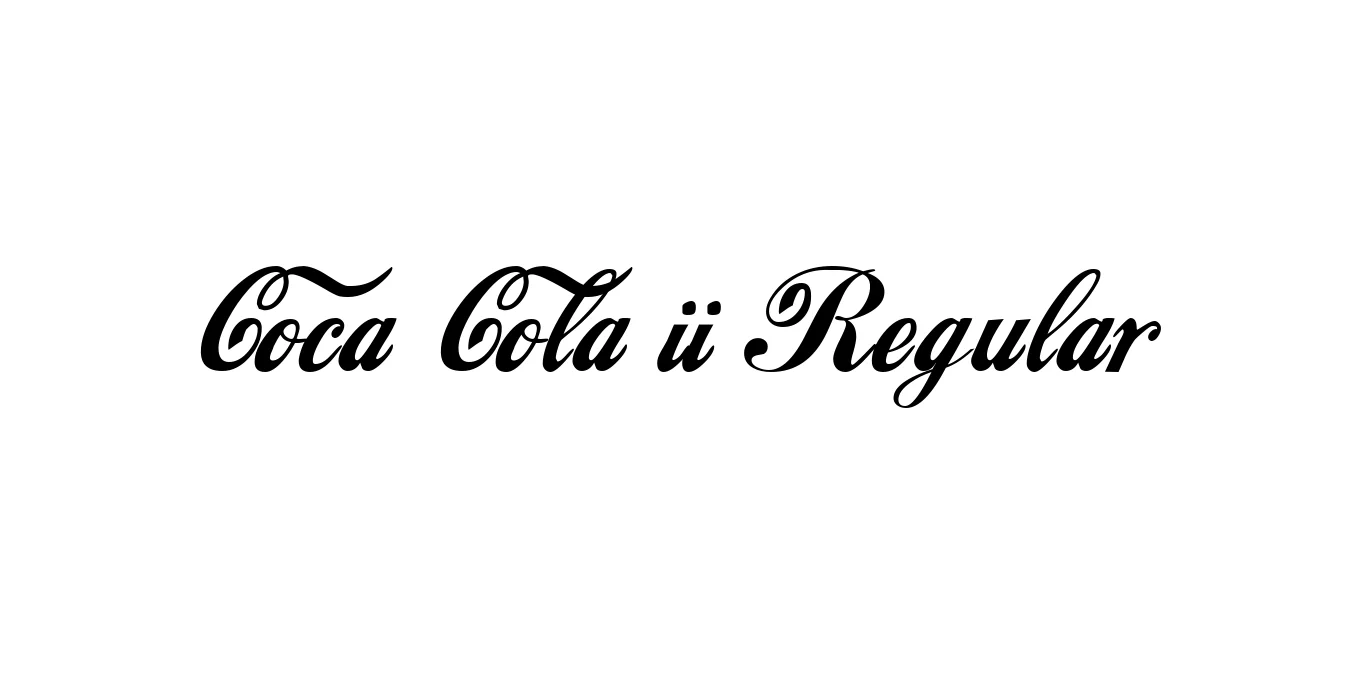
Coca Cola ii Regular
Designed by Unknown (Based on the original design by Frank Mason Robinson)
The Coca Cola ii Regular font is a meticulous recreation of the iconic Spencerian script that has defined the Coca-Cola brand since its inception in the late 19th century. Originally penned by Frank Mason Robinson, the company's bookkeeper, the script was chosen for its elegant, flowing style which was popular in formal correspondence of the era. This digital 'ii' version captures the specific weight and flourish of the classic logo, providing a nostalgic aesthetic that is instantly recognizable across the globe.
As a script-based typeface, this font focuses on the high-contrast strokes and dramatic loops that characterize traditional calligraphy. It serves as a bridge between historical penmanship and modern digital design, allowing users to replicate the vintage advertising feel of early 20th-century Americana. While it remains a fan-favorite for decorative purposes, it continues to symbolize one of the most successful examples of visual branding in commercial history.
Coca Cola ii Regular Best Uses
Ideal for creating logos or brand identities that require a classic, nostalgic American feel.
Perfect for eye-catching headlines in promotional posters and vintage-themed marketing.
Used for creating standout graphic content that leverages iconic pop culture imagery.
Adds a sophisticated yet familiar touch to party invites and themed event stationery.